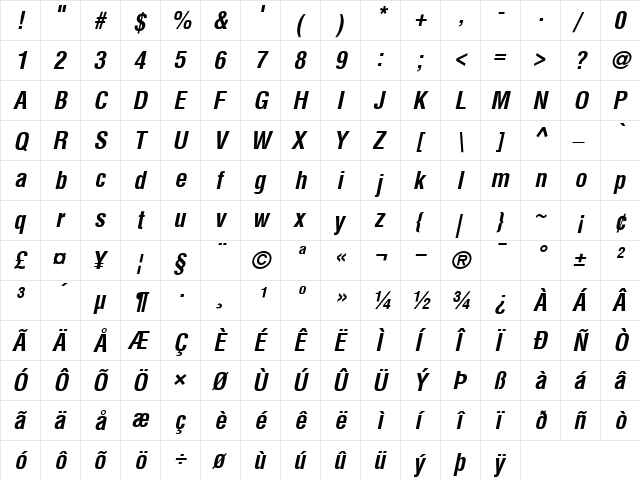
Helvetica-Condensed BoldItalic Font Preview
Design Context for Helvetica-Condensed Typeface
Helvetica-Condensed is a composed and adaptable typeface that performs quietly and consistently across a wide range of design contexts. The dynamic lean of this cut emphasises speed and emphasis in any layout. Its bold stroke weight gives it real presence on the page. Its narrow stance lets it pack a punch even in space-constrained designs.
Pro Tip: Try Helvetica-Condensed for annotation and caption copy alongside an upright companion — the contrast in angle creates a dynamic but ordered typographic system.